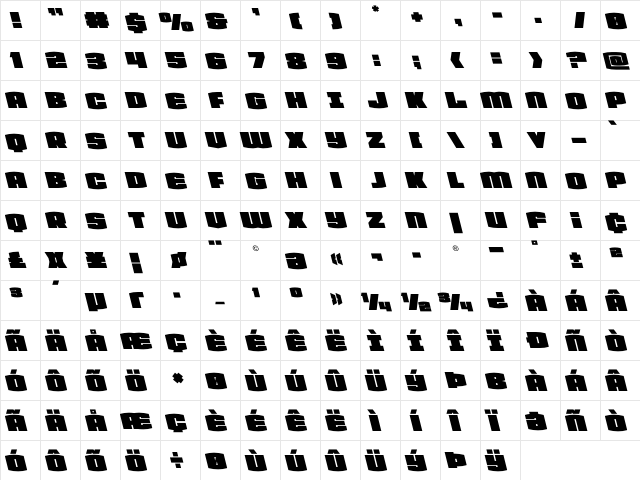
Team Galaxy Leftalic Regular
Design Context for Team Galaxy Leftalic Typeface
Team Galaxy Leftalic is a composed and adaptable typeface that performs quietly and consistently across a wide range of design contexts. Its italic angle brings a sense of urgency and motion to the letterforms.
Pro Tip: Try Team Galaxy Leftalic for annotation and caption copy alongside an upright companion — the contrast in angle creates a dynamic but ordered typographic system.